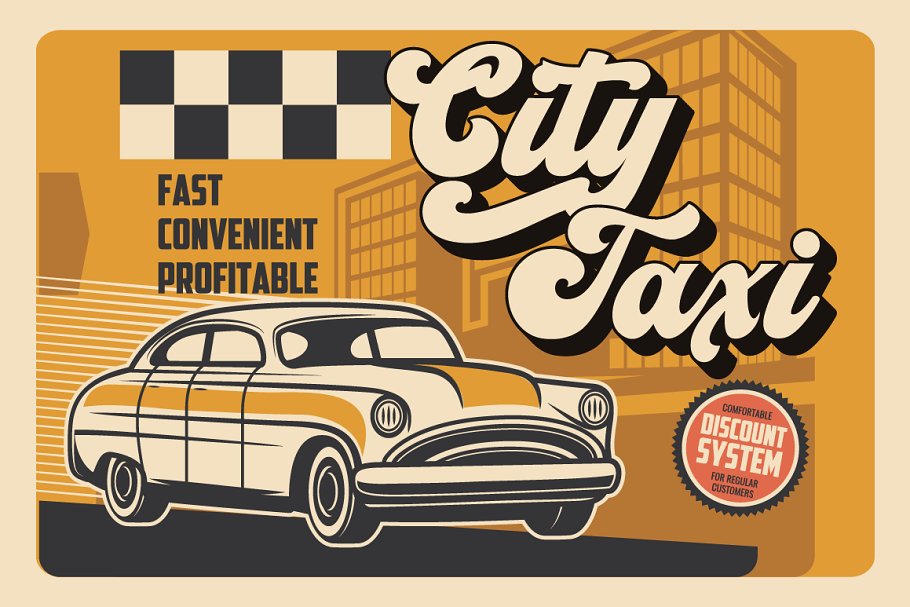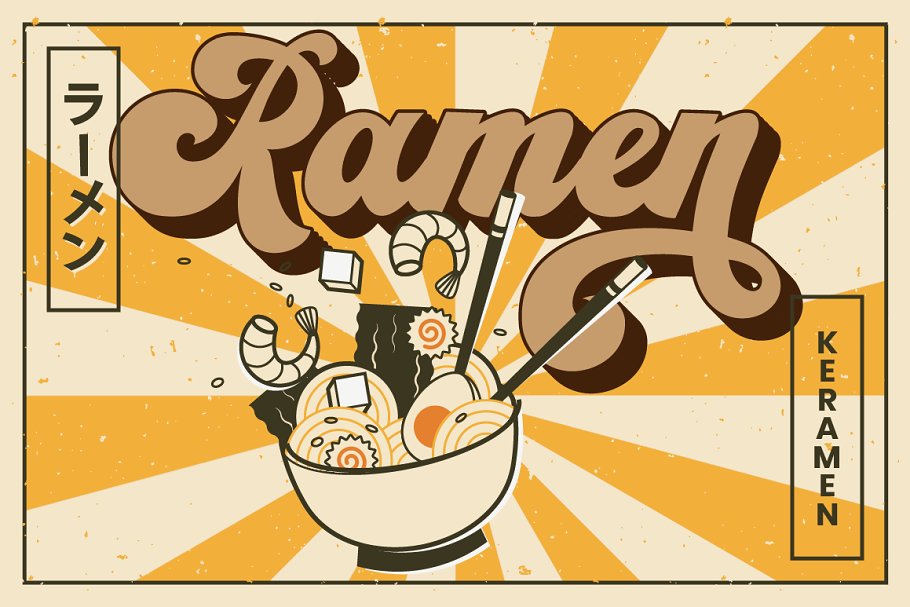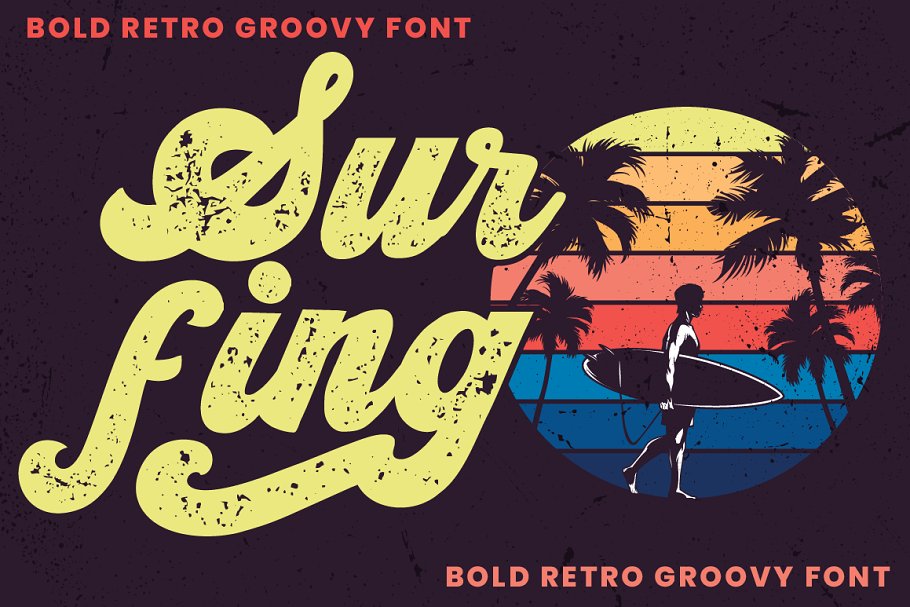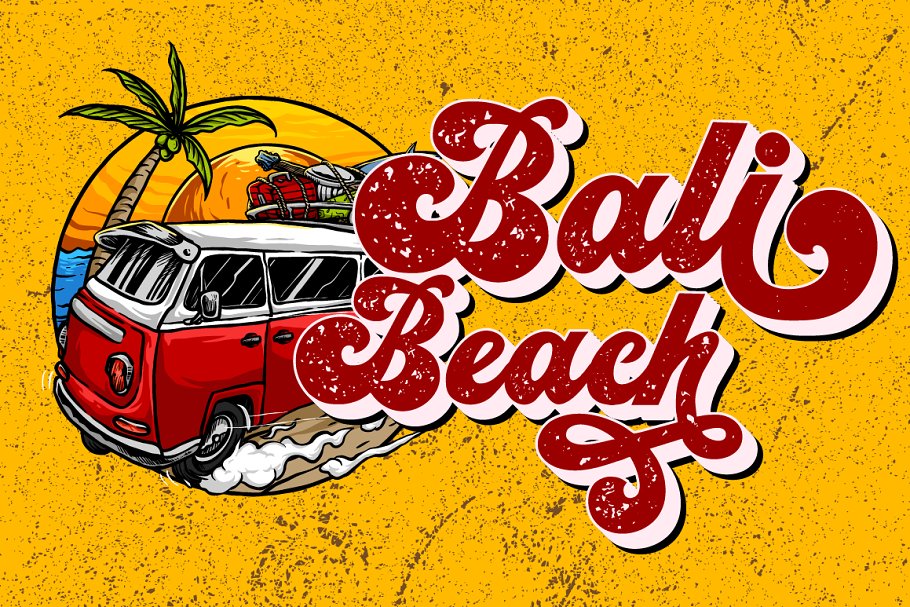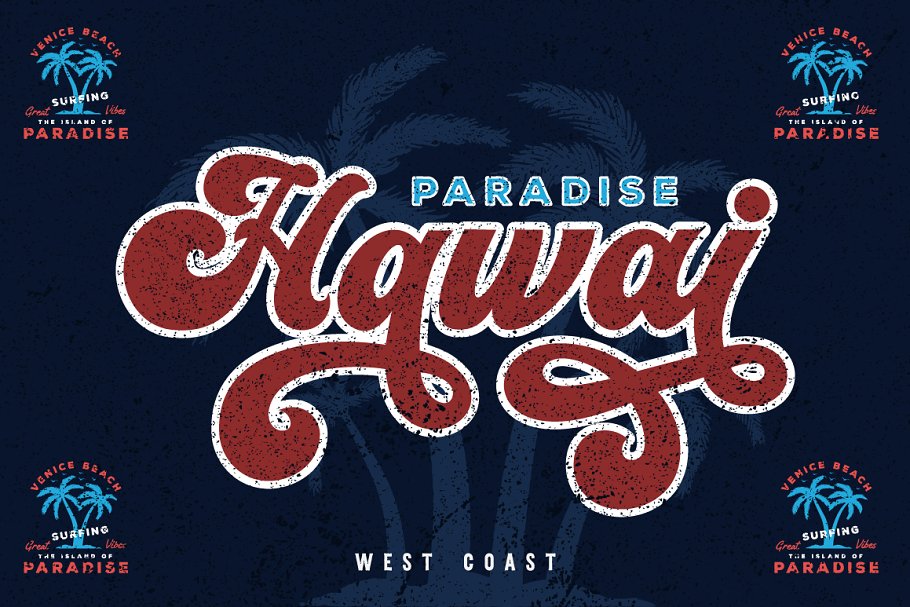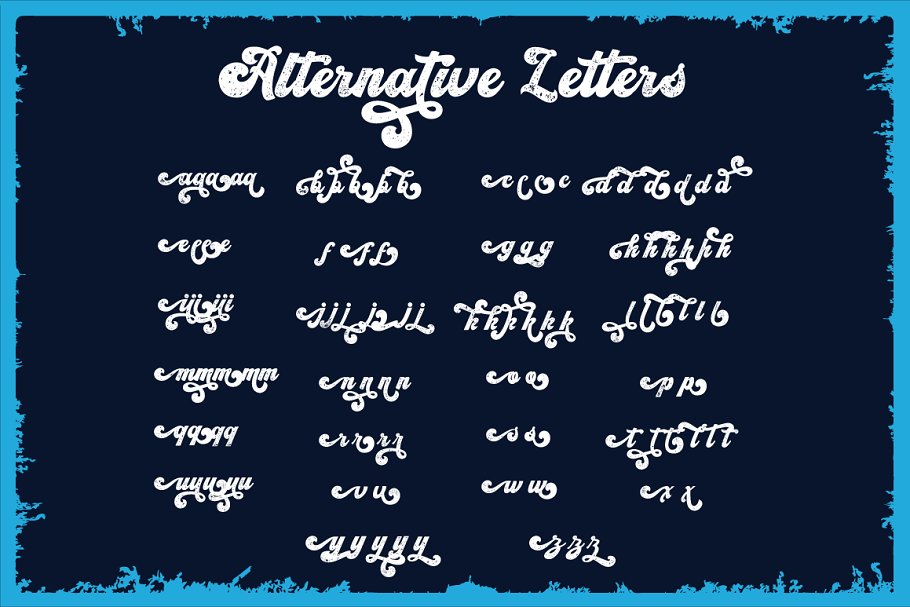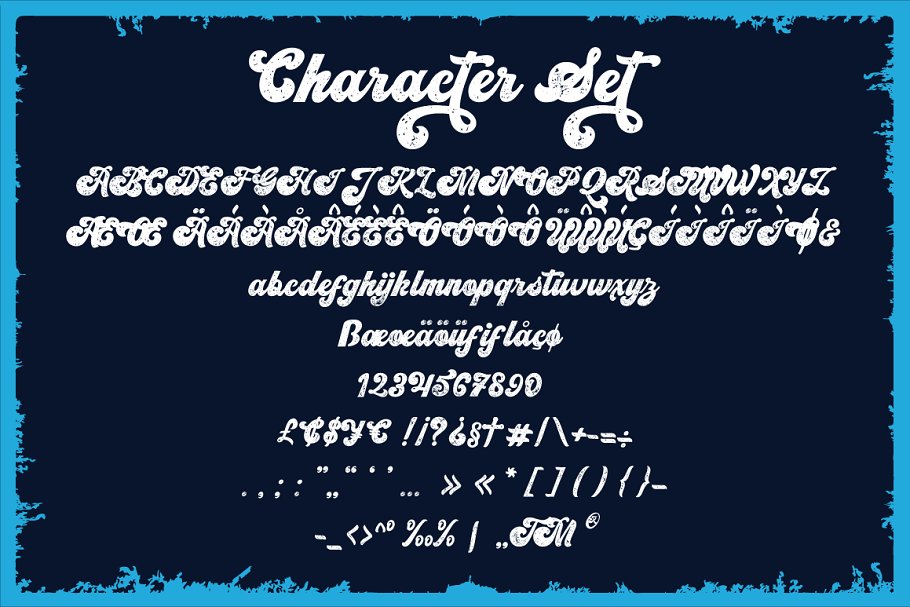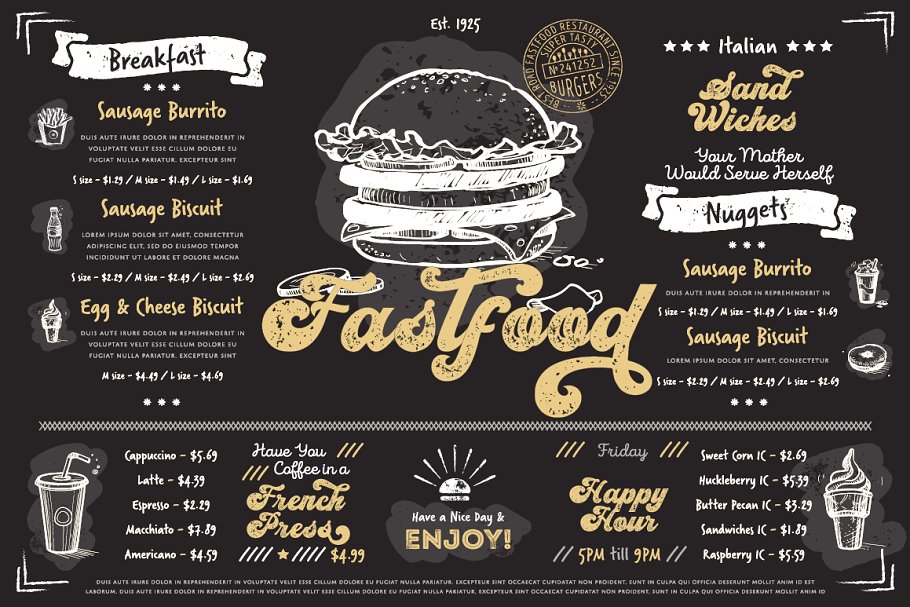
About the Vintage King Retro Groovy Font
Vintage King is perfect for vintage and retro design, badge, logos,t-shirt, poster, branding, packaging, signage, book coverand so much more!Come with Opentype feature with a lot of alternates, its help you to make great lettering, This font is also support multi language